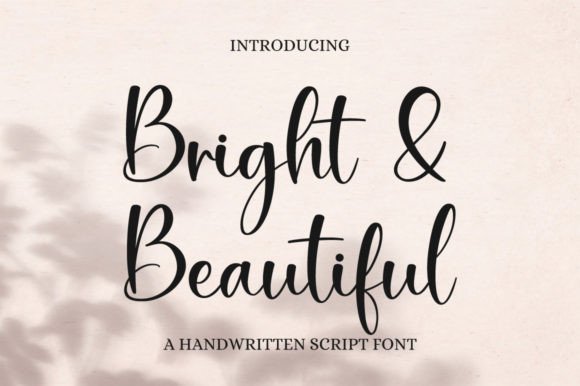
Introducing Bright & Beautiful Font, the epitome of sophistication and elegance in the world of script fonts. Created by Graphix Line Studio, this delicate and refined font is guaranteed to captivate your senses and leave a lasting impression.
With its versatile style, Bright & Beautiful is the perfect choice for a wide range of creative projects. Whether you're designing stunning wedding invitations, crafting beautiful stationary art, or even creating eye-catching social media posts, this font will effortlessly elevate your work to new heights.
One of the standout features of Bright & Beautiful is its extensive collection of amazing glyphs and ligatures. Thanks to its PUA encoding, accessing these exquisite details is a breeze. Unlocking the full potential of this font has never been easier, allowing you to add a touch of uniqueness and flair to your designs.
Immerse yourself in the elegance of Bright & Beautiful as it transports you to the serene ambiance of a tropical beach. Its flowing curves and graceful strokes evoke a sense of calmness and tranquility, making it the best font choice for any beach-themed project. Let the beauty of this font transport you to a world of endless possibilities.
Prepare to fall in love with Bright & Beautiful's ability to effortlessly convey emotions. Its timeless charm and exquisite craftsmanship make it the ideal companion for any design that aims to evoke feelings of romance, joy, or even nostalgia. Let it be the voice that speaks directly to your audience's hearts.
Step into a world of sophistication and elegance with Bright & Beautiful Font. Embrace its versatility, access its amazing glyphs and ligatures, and let its enchanting aura elevate your creative endeavors. Whether you're a professional designer or simply a lover of beautiful typography, this font is a must-have in your collection.